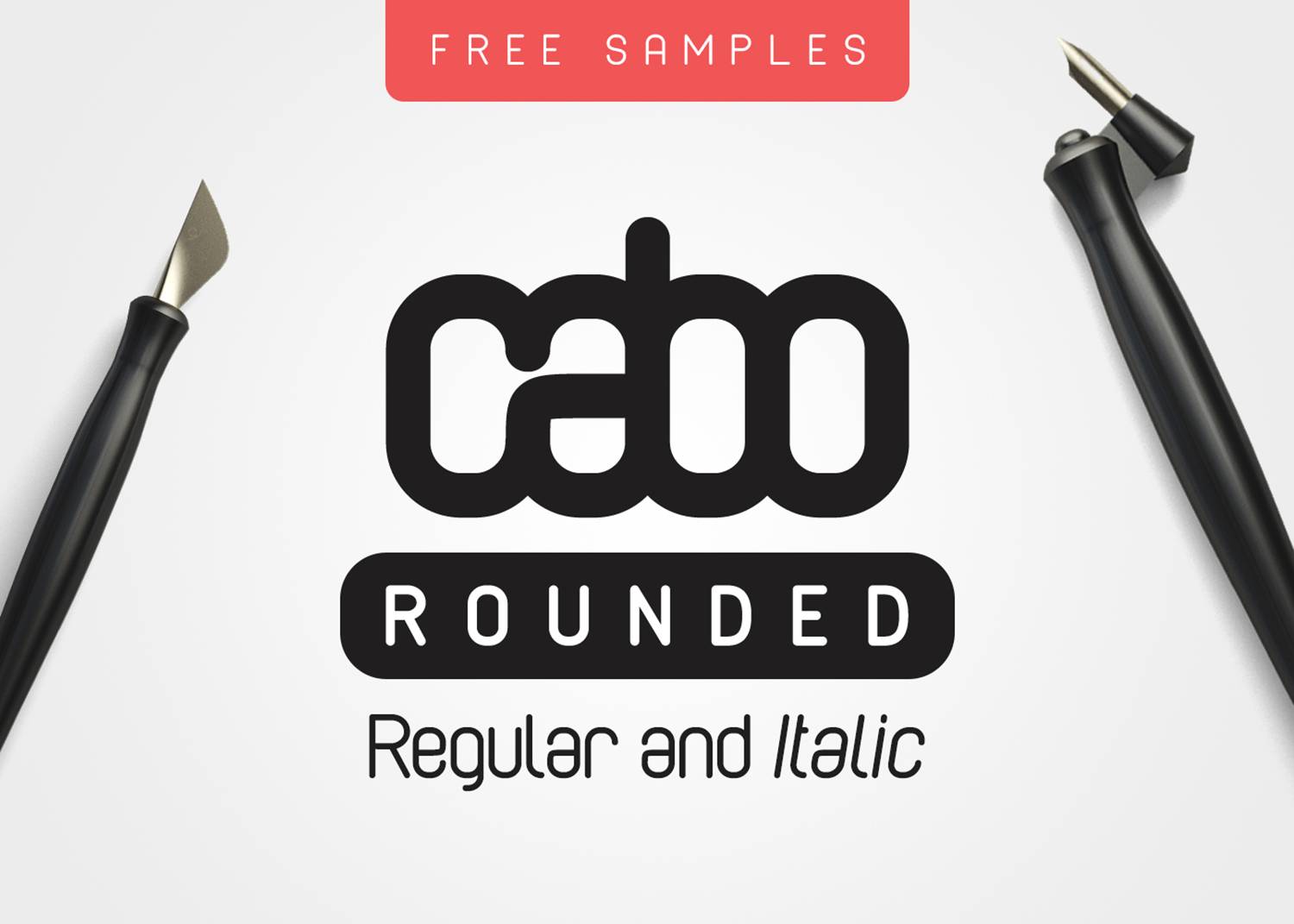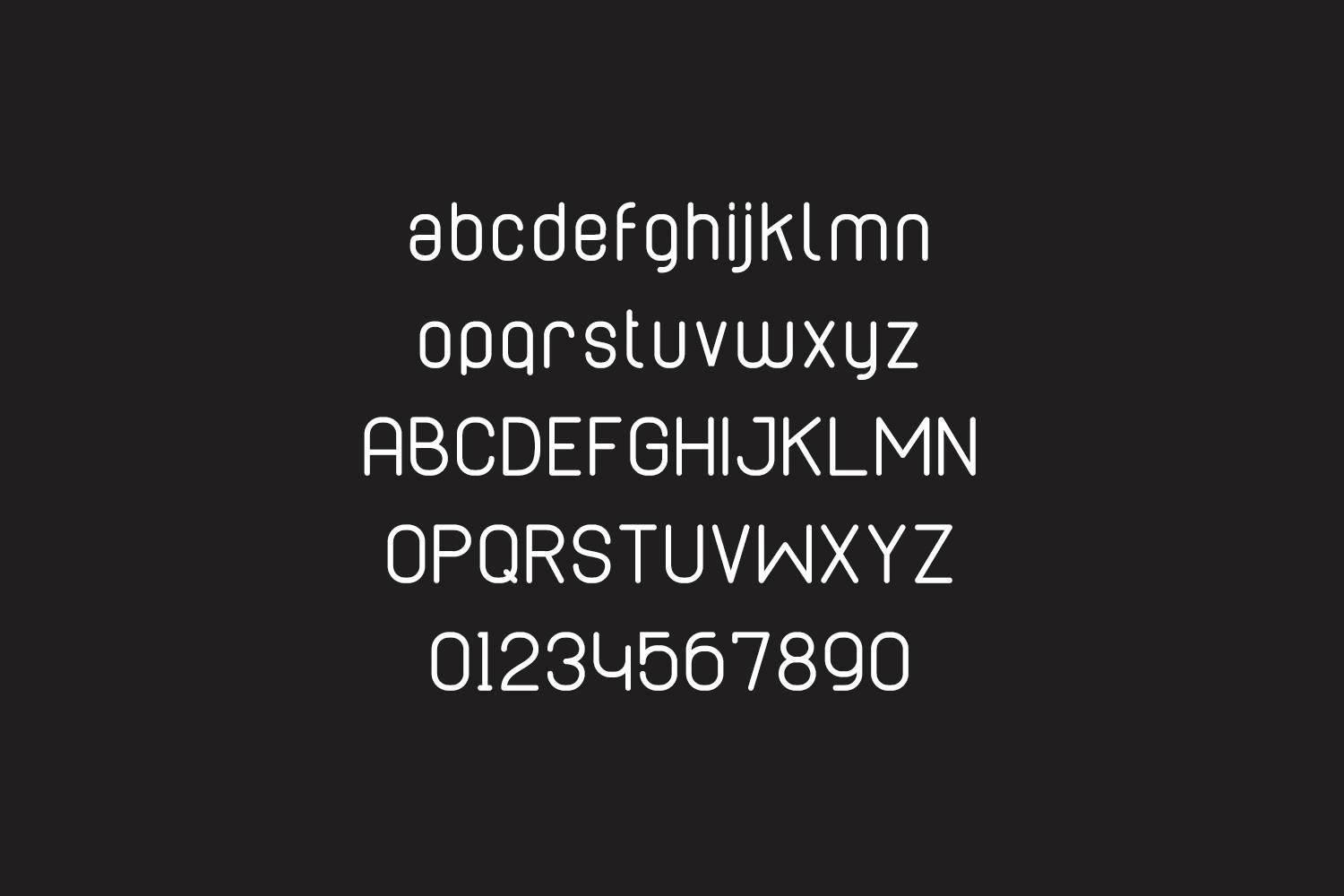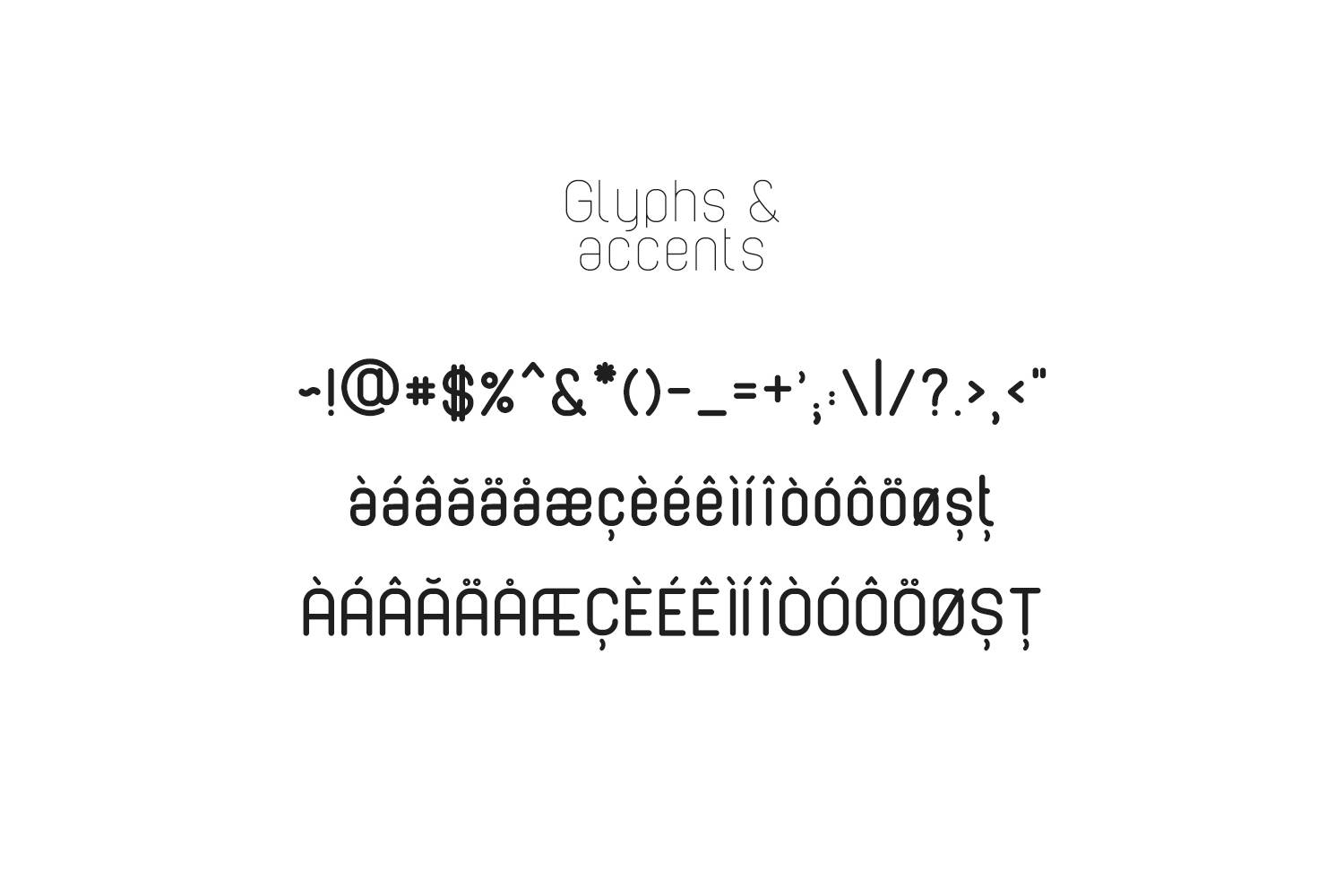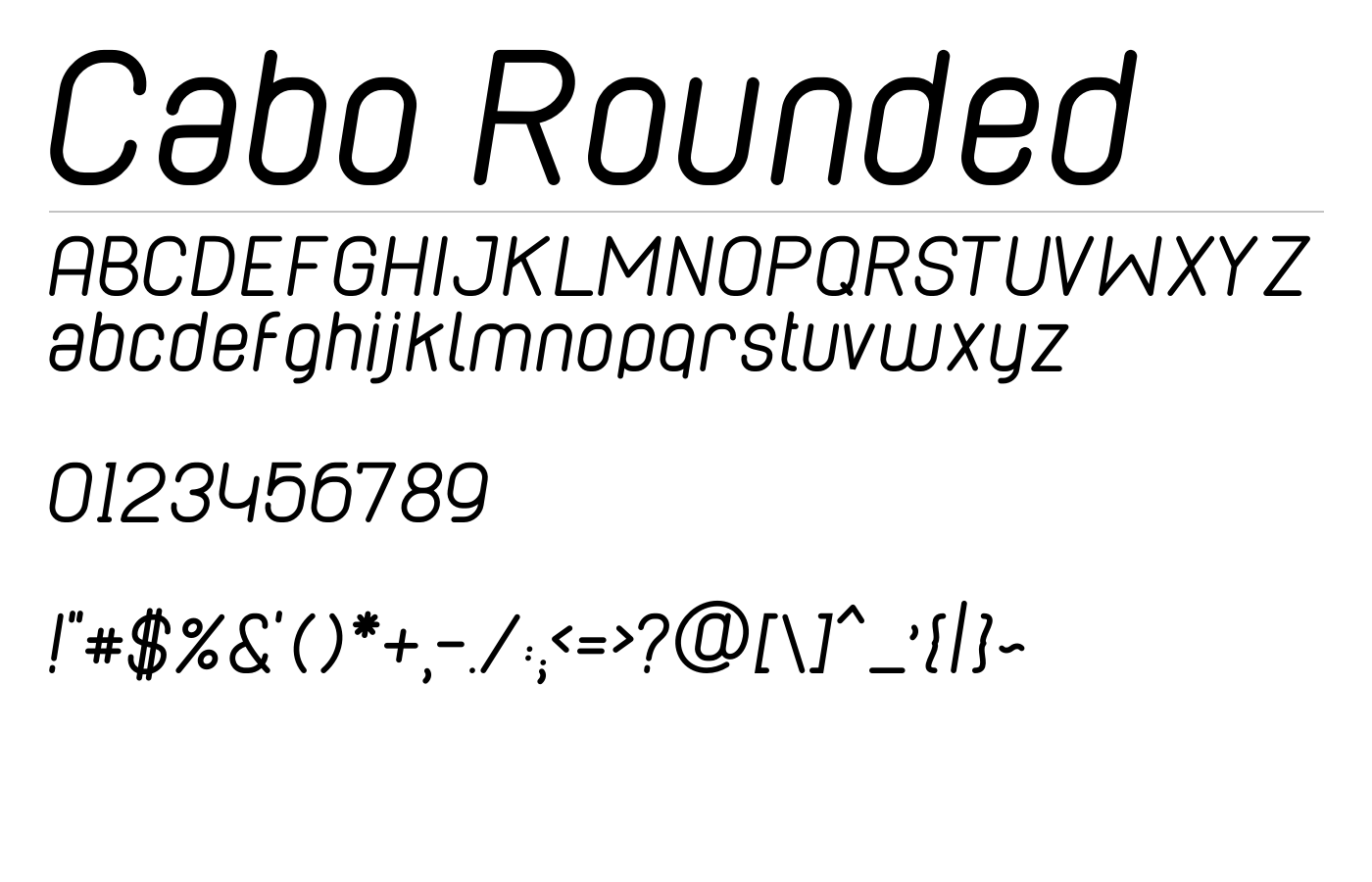
Cabo Rounded is a sleek and modern sans serif font with rounded edges that impart a friendly and approachable feel. Its slightly condensed width and medium x-height make it highly legible and versatile for headlines, logos, and digital interfaces where a clean yet warm tone is desired. This font works well for brands seeking a contemporary aesthetic with a soft, human touch.
Cabo Font
About Cabo Font
| Font family | Cabo Font |
| Designer | Casota Bogdan |